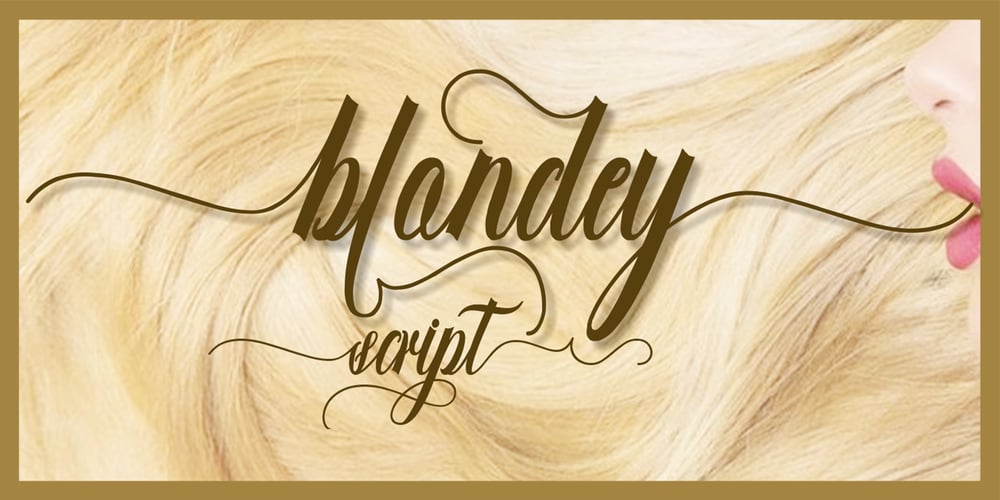
Blondey Script Font Family was designed by Yusliana M Isa and published by Gian Studio. Blondey Script contains 1 styles and family package options. Blondey Script model original handwritten simple font, the newest you can get now! With an updated hand calligraphy model with special glyphs that have been given a combination of fantasy and handwritten ink. This font will look beautiful on all designs, Wedding designs, branding materials, blog titles, quotes and invitations, business cards.Including fonts:. Blondey Script. OTTo enable the OpenType Stylistic alternative, you need a program that supports OpenType features such as Adobe Illustrator CS, Adobe Indesign & CorelDraw X6-X7, Microsoft Word 2010 or later.There are additional ways to access the alternative/swash, using the Character Map (Windows), Nexus Font (Windows), Font Book (Mac) or a software program such as PopChar (for Mac and Window).